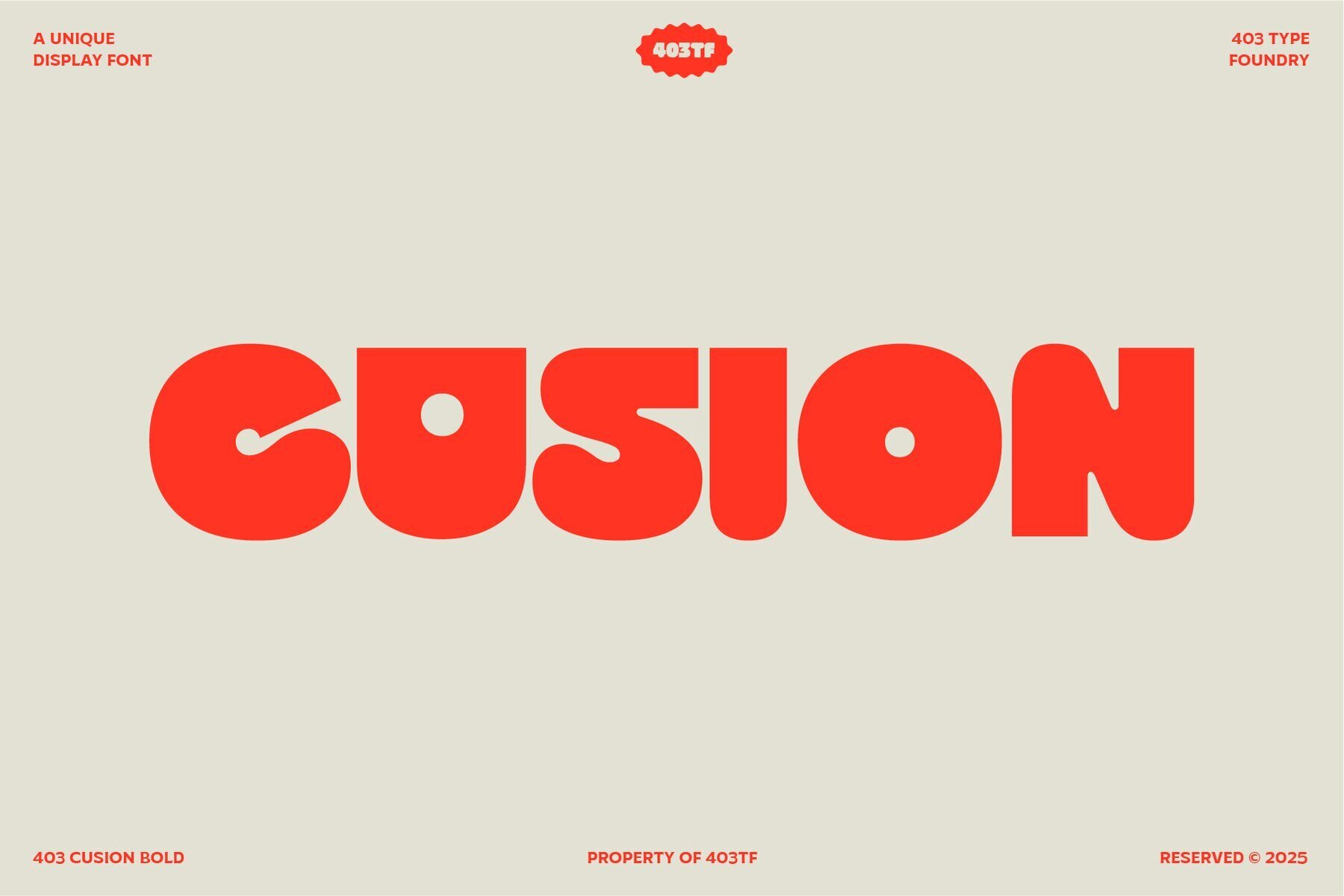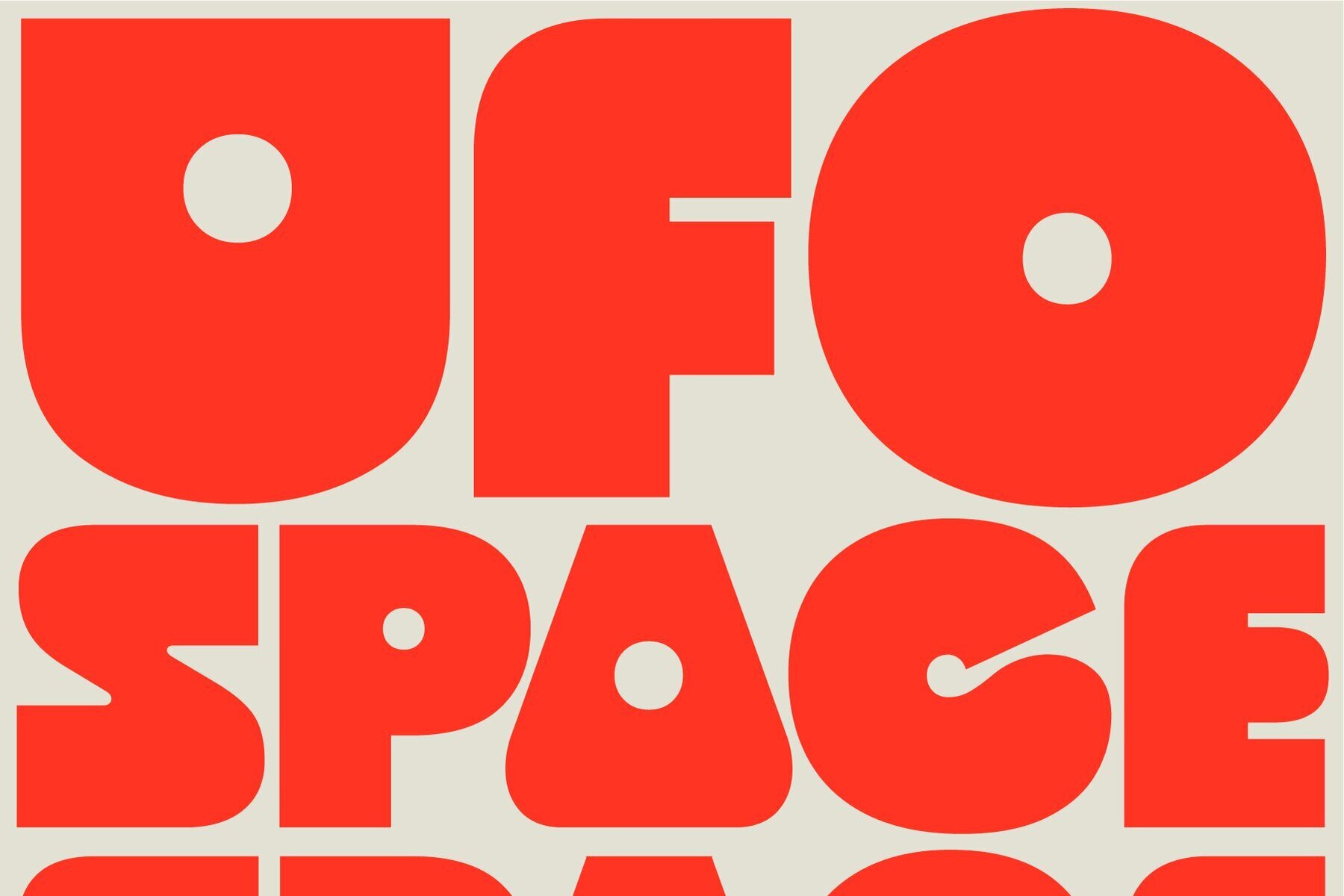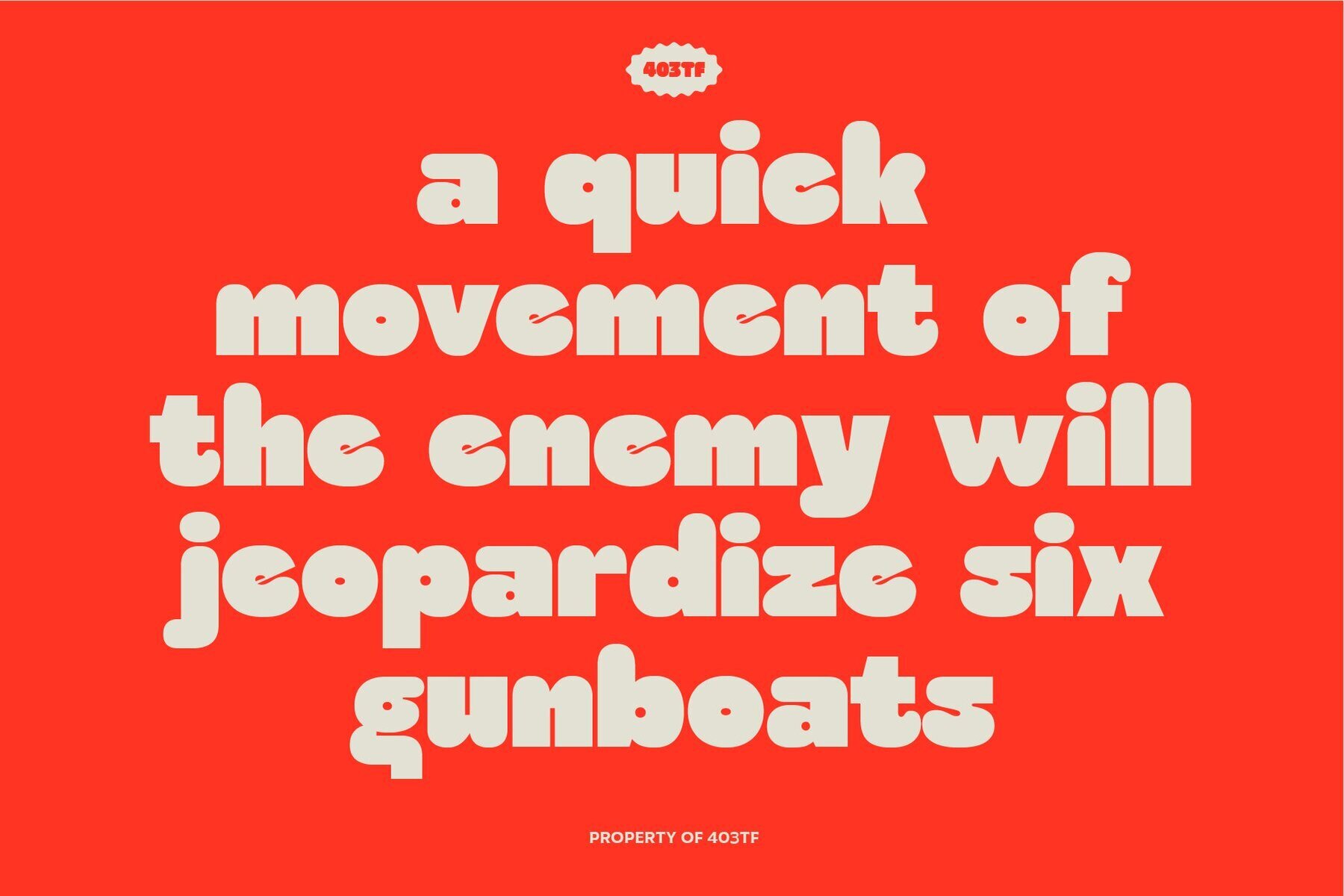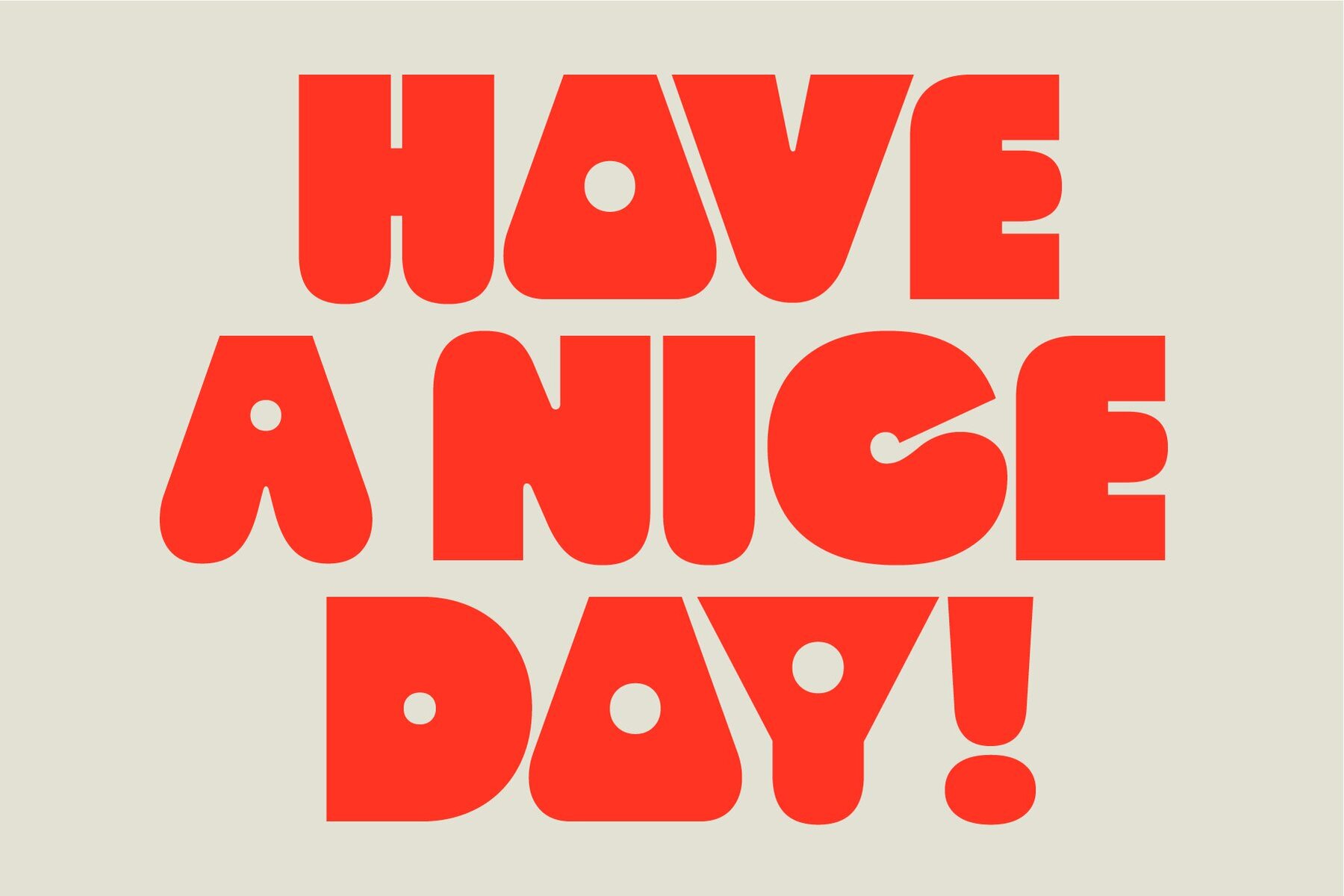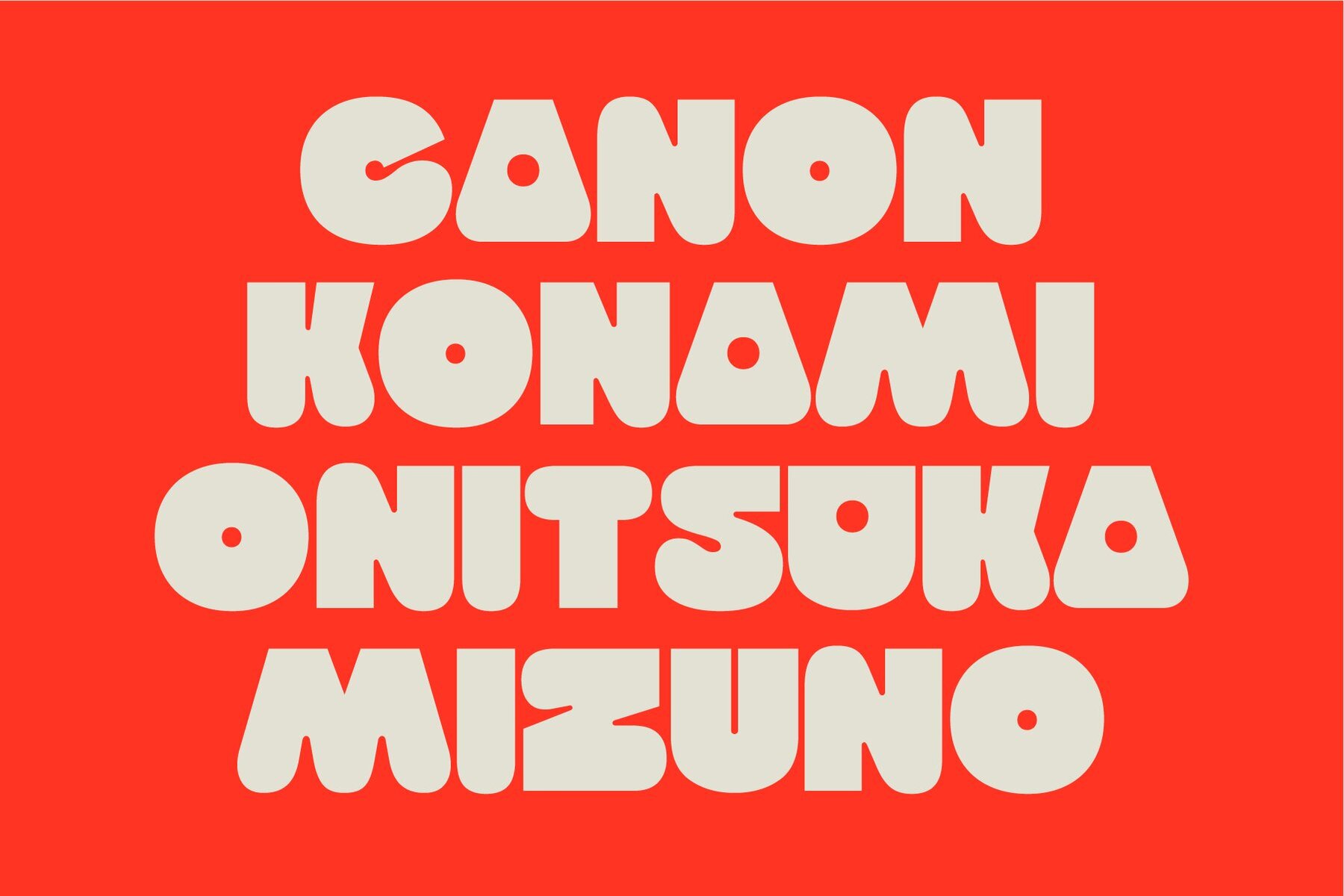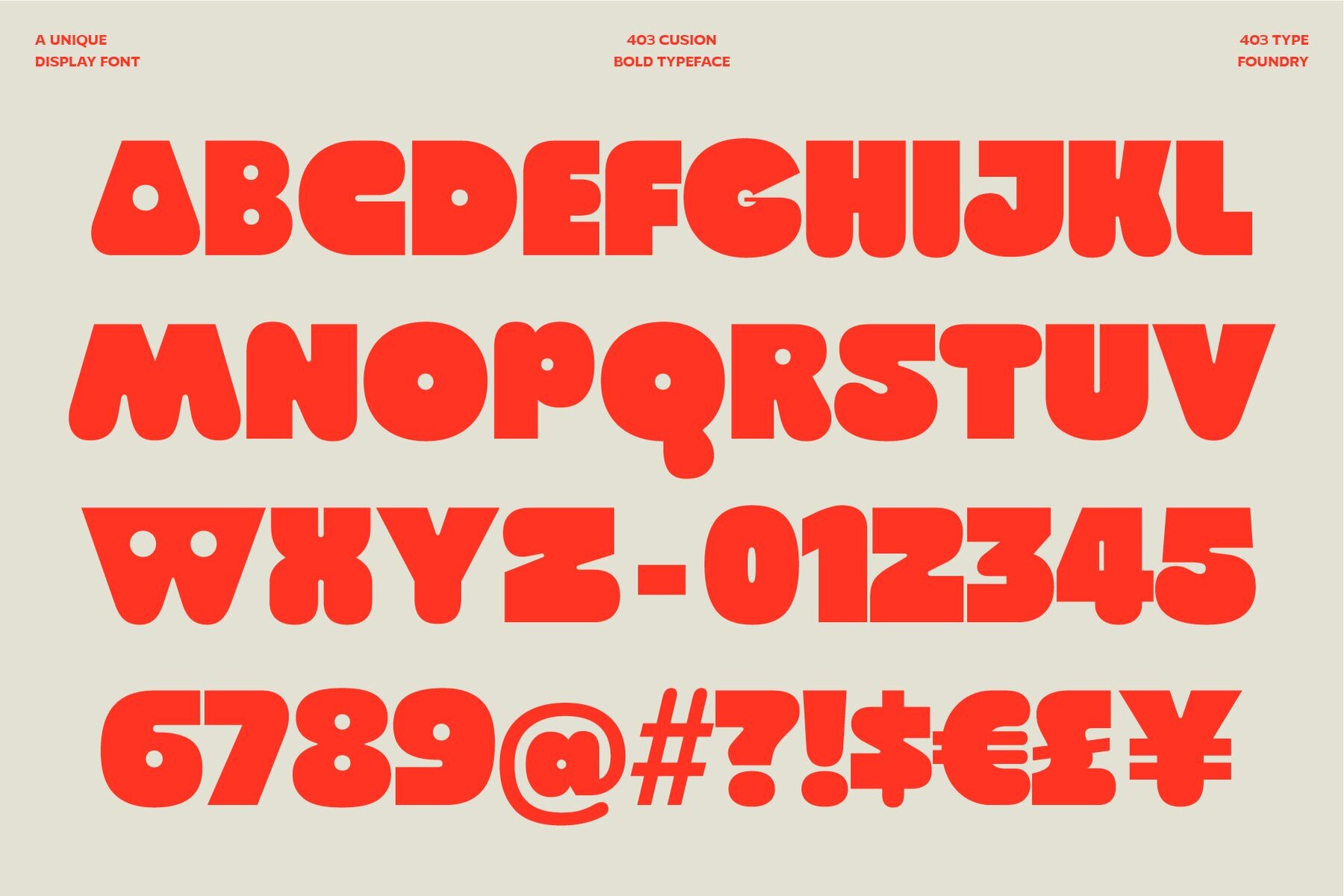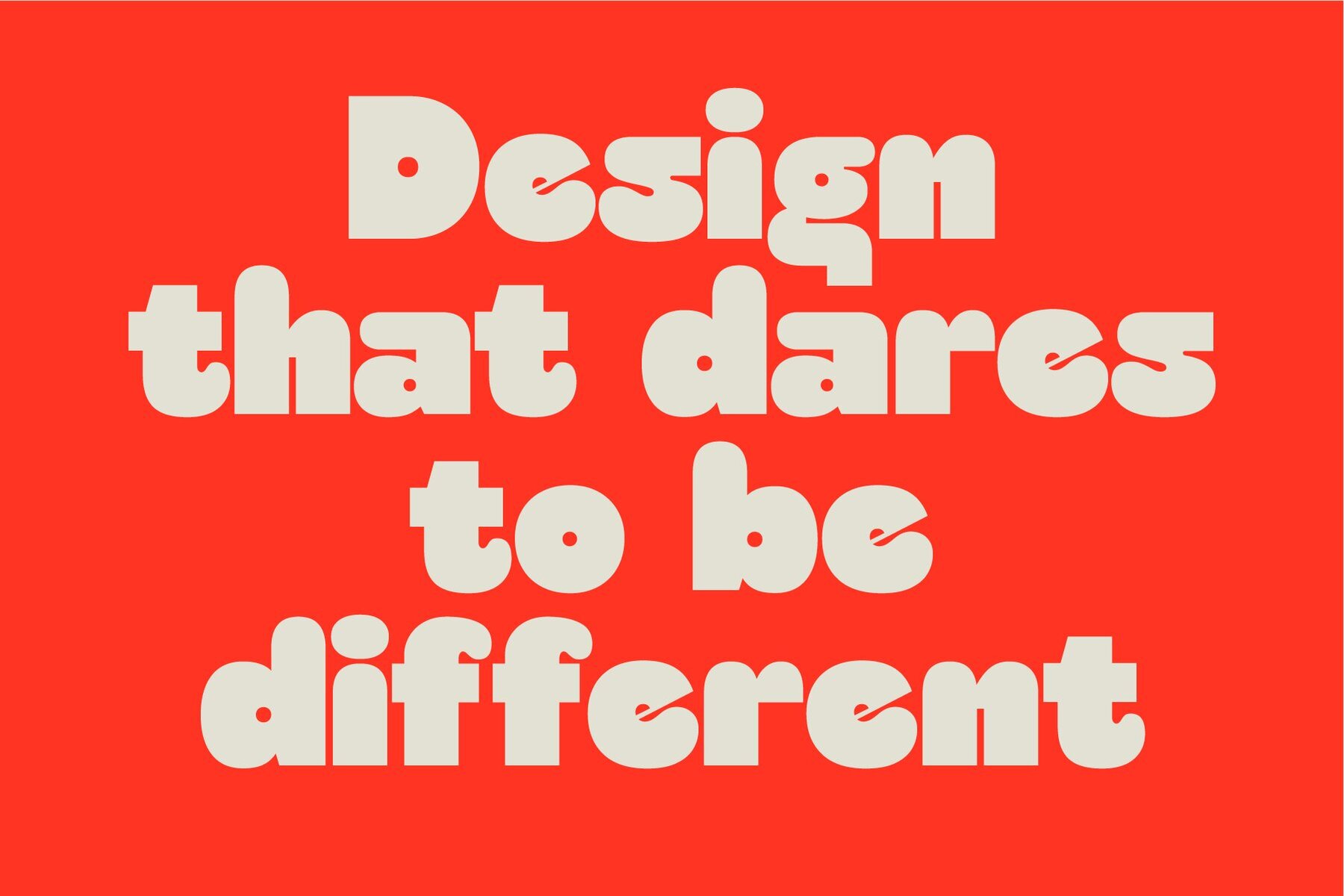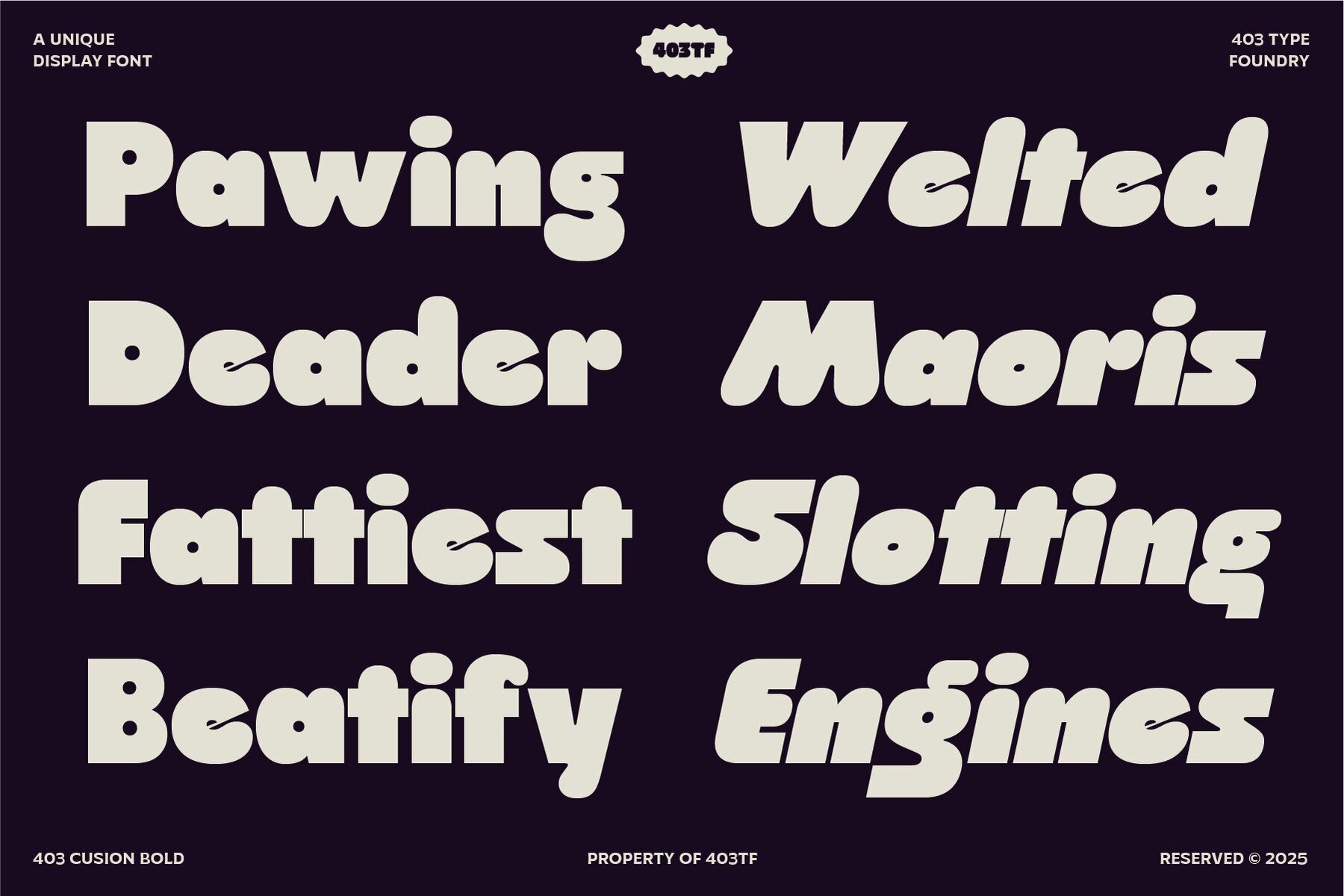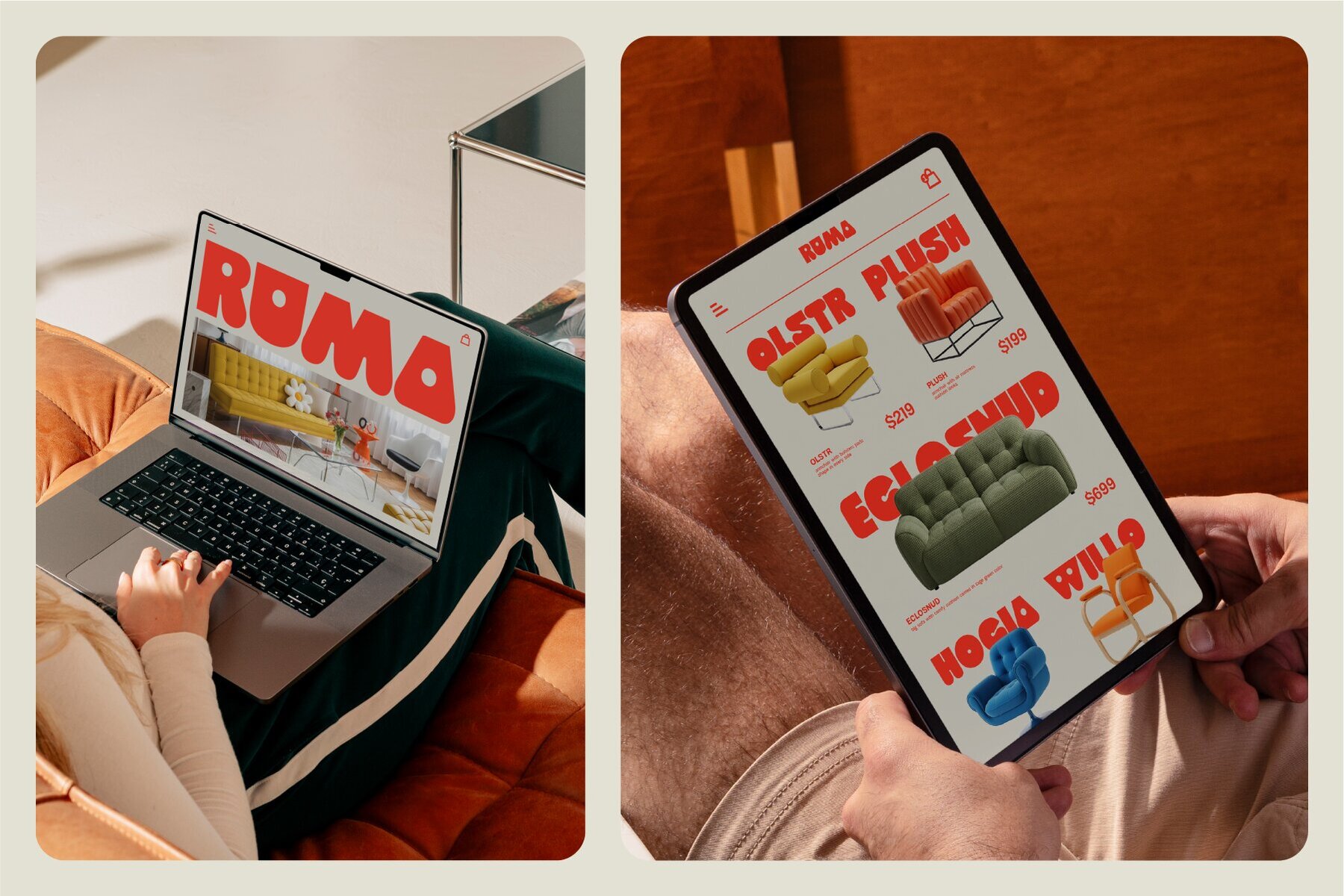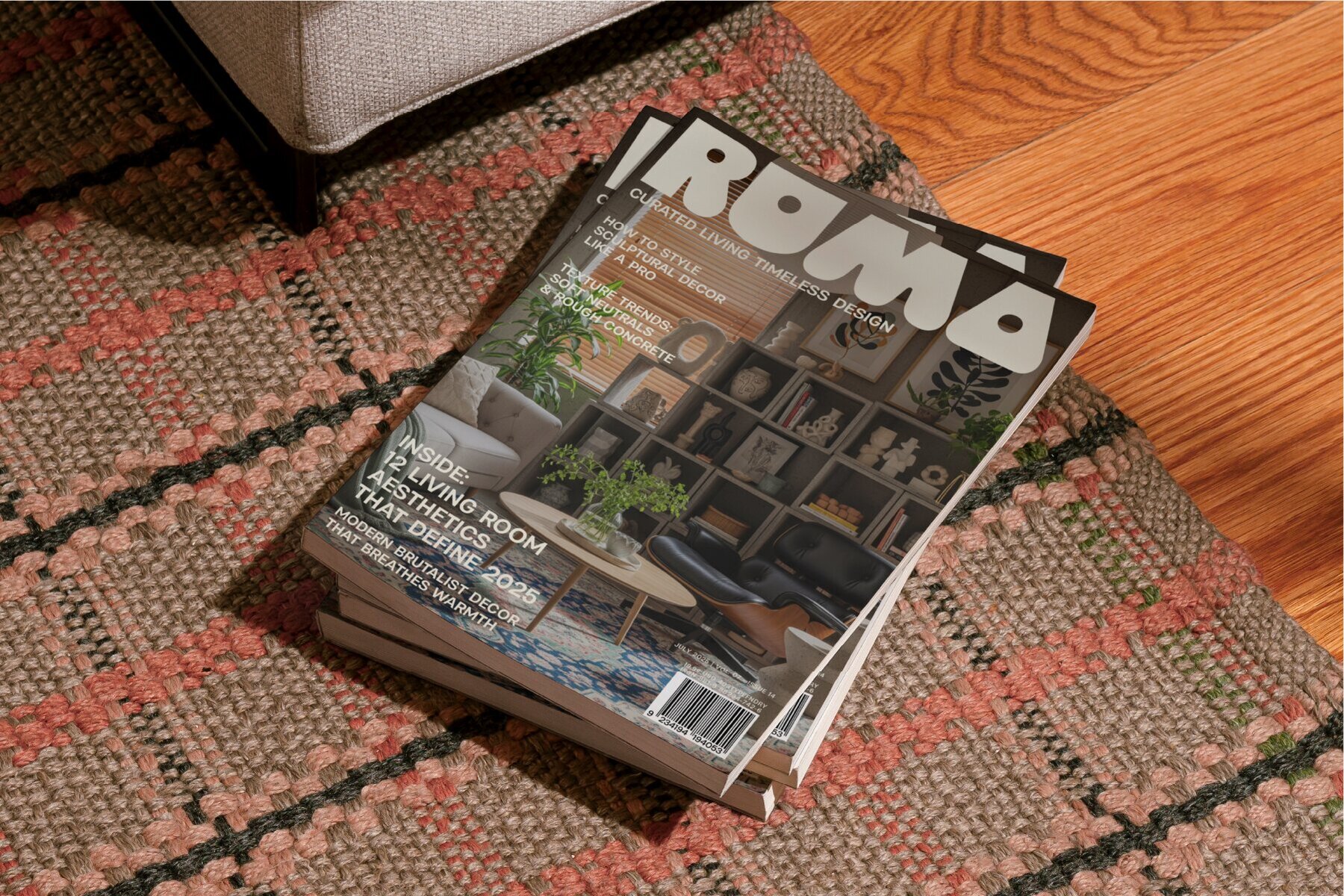
403 Cusion Font
The 403 Cushion display font transports you back to the bold era of the 70s, bringing forth a vintage allure enriched with character. With thick, groovy letterforms, this font makes a striking visual statement ideal for brands and designers aiming for a retro yet contemporary identity. Renowned for its dynamic personality, Cushion is perfect when the aim is to capture attention and ensure memorability. Its design draws inspiration from the plush, rounded forms reminiscent of vintage sofas and the vibrant advertising of the 70s. Cushion's letterforms are crafted to appear "stuffed" and soft, abolishing harsh lines to introduce a warm, approachable quality. The font channels the optimistic and expressive tone of its era, offering a visual style that is both confident and packed with character, akin to a treasured statement piece. Catering to a wide array of applications, 403 Cushion is an invaluable asset for bold projects. It serves branding experts who seek to create lasting identities and excels in editorial settings for impactful headlines and magazine covers. On packaging and merchandise, it offers instant appeal, merging nostalgia with a fresh edge. Suitable for various purposes, Cushion is ideal for branding, logos, packaging, apparel, advertising, posters, headlines, and social media. Features: Choose 403 Cushion for a design imbued with the soul and confidence of the 70s, and craft distinctive, iconic visuals.403 Cushion: Retro Display Font With Nostalgic Impact